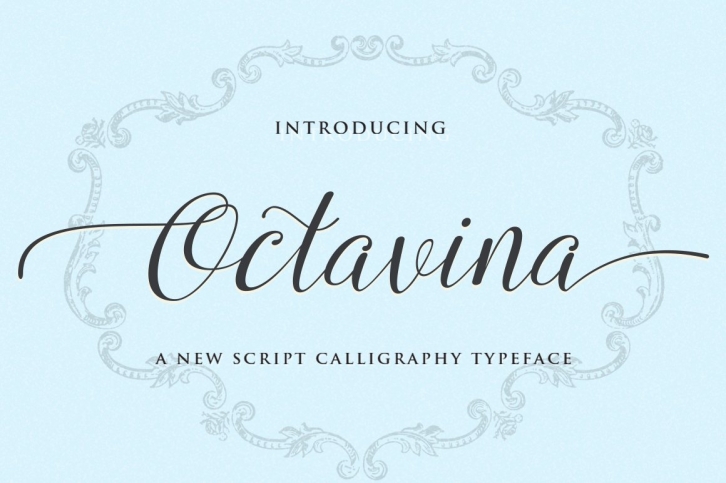
Introducing Octavina Script
Octavina Script is a new handwritten stylish copperplate calligraphy fonts, combines from copperplate to contemporary typeface, classic and elegant touch.
Octavina Script features 394 glyphs and 216 alternate character contain with opentype features. Stylistic alternates, Ligature and more.You can access all those alternate characters by using OpenType savvy programs such as Adobe Illustrator, Adobe InDesign and CorelDraw X6-X7.
Octavina Script is suitable for Apparel Brand, any greeting cards, Painting design style, or any design that needs natural and personal touch. Mix and match the alternate characters to add an attractive message to your design.
Features of Octavina Script is;
• Swash Alternates
• Contextual Alternates
• Standart ligatures
• Stylistic sets